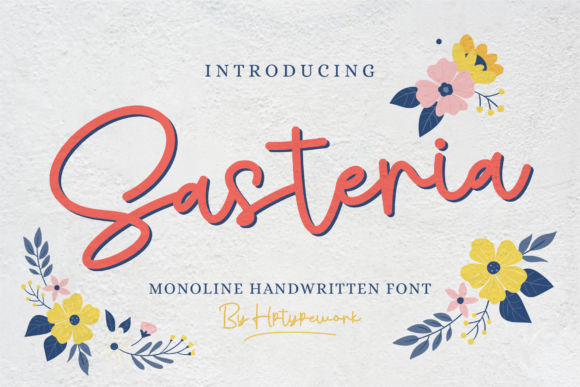
Introducing Sasteria Font, the Exquisite Handwritten Masterpiece
In a world clamoring for authenticity and individuality, Sasteria Font emerges as a radiant beacon of creativity, inviting you to embrace the art of handwritten expression. This asymmetrical and timeless script font is meticulously crafted to capture the essence of human touch, transforming your digital creations into captivating works of art.
Sasteria Font is not merely a collection of letters and characters; it's an invitation to embark on a journey of self-expression and visual storytelling. Each letter dances across the page with a unique and beautiful touch, as if penned by a master calligrapher. The result is an explosion of visual intrigue that will make your designs come alive, captivating the hearts and minds of your audience.
Sasteria Font's versatility knows no bounds. Whether you're a seasoned designer seeking to elevate your branding or a creative enthusiast yearning to add a personal touch to your projects, this font is your perfect companion. Its elegant curves and dynamic strokes lend themselves effortlessly to logos, branding, quotes, social media posts, and any creative endeavor that demands a touch of sophistication and charm.
With Sasteria Font, you'll unlock a world of creative possibilities. Picture your logo adorned with the graceful strokes of this font, exuding an air of timeless elegance. Envision your branding materials radiating with warmth and authenticity, inviting customers to connect with your brand on a deeper level. Create social media posts that resonate with your audience, captivating their attention and leaving a lasting impression. The possibilities are endless.
Sasteria Font is more than just a font; it's an investment in your creative potential. Its timeless design ensures that your creations will remain relevant and captivating for years to come. Embrace the beauty of handwritten expression and elevate your designs to new heights with Sasteria Font.